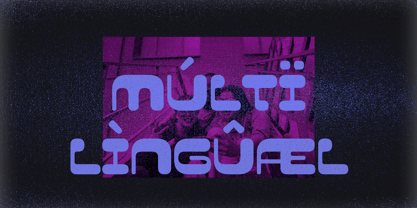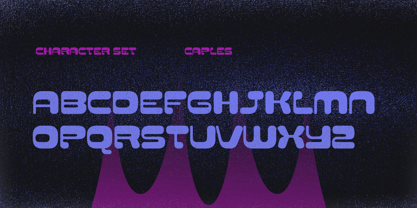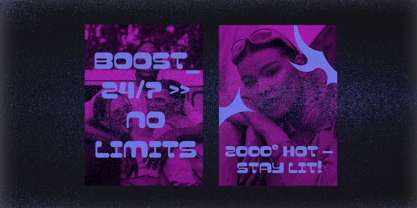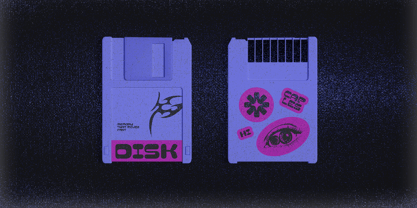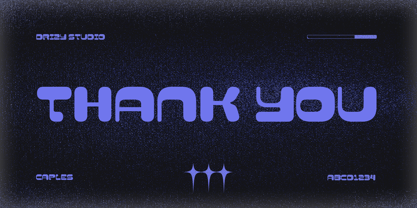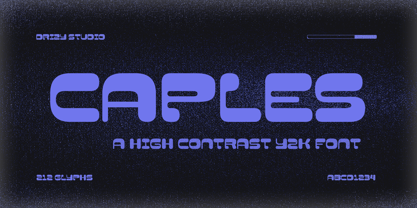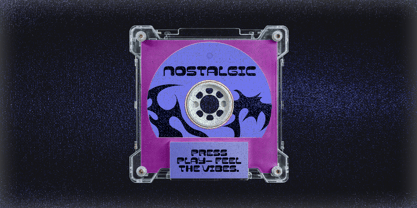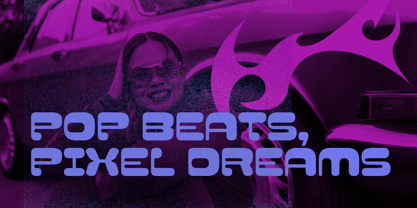
Caples
by Drizy Font
The Caples Font Family was designed by Panca Ahmadi Hasan and published by Drizy Font. Caples contains 1 styles. More about this family
Caples – Y2K High Contrast Font Caples is a Y2K high-contrast display font that brings back the glossy, futuristic drama of early 2000s design. Its bold curves, razor-sharp edges, and playful proportions give your lettering that iconic tech-girly vibe that defined the era. Perfect for posters, branding, logos, album covers, stickers, and anything that deserves a nostalgic punch. Caples – Y2K High Contrast Font features: Character Set Punctuation & Numbers Multilingual Elevate and explore the design possibilities with this Y2K High Contrast Font!
Designers: Panca Ahmadi Hasan
Foundry: Drizy Font